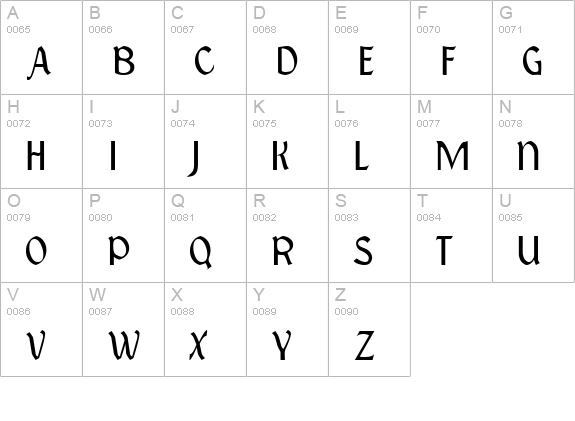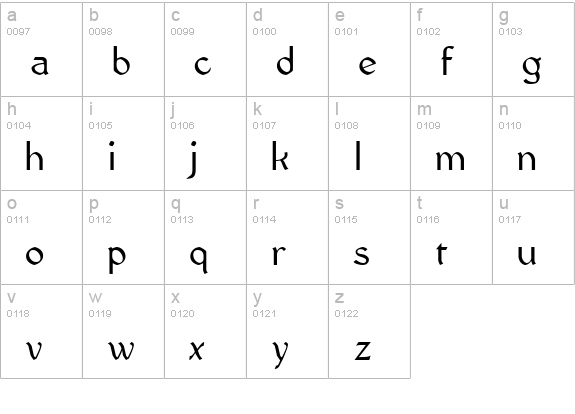
Federhozen Plain Font Details
Federhozen Plain font is a versatile and elegant typeface that exudes a sense of sophistication and charm. With its clean lines and classic styling, this font is perfect for a wide range of design projects, from branding to packaging to editorial design. The simplicity of the font makes it easy to read while still conveying a sense of style and elegance. What sets Federhozen Plain font apart is that it is not only visually appealing, but also free to download. This means that you can add a touch of class to your projects without breaking the bank. Whether you're a seasoned designer looking for a new favorite font or a beginner experimenting with different styles, Federhozen Plain font is a fantastic choice. You can easily access this stunning font for free at FontsMarket.com. Simply head to their website, download the font, and start incorporating it into your designs today. With Federhozen Plain font, you can elevate your projects and create a lasting impression with its timeless appeal.